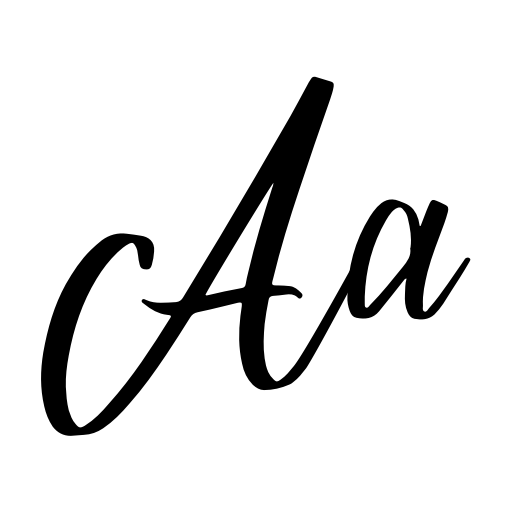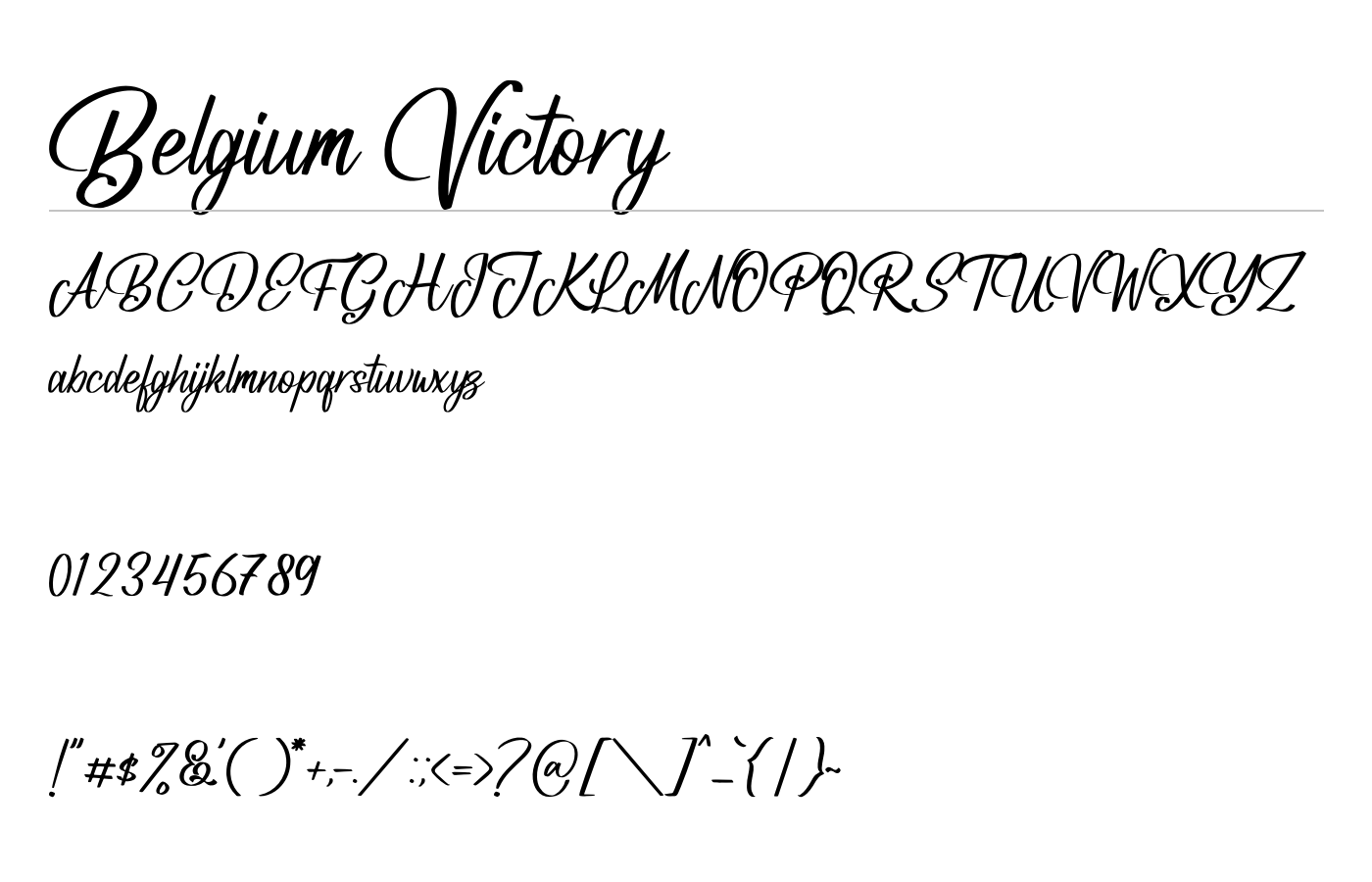
Belgium Victory is an elegant script font that features flowing, connected letterforms with a graceful and refined appearance. Its moderate contrast and smooth, calligraphic strokes give it a sophisticated yet approachable personality, making it ideal for wedding invitations, branding, and stylish headlines where a touch of class and warmth is desired. The font’s delicate curves and clear legibility also make it well suited for decorative and formal design projects.
Belgium Victory Font
About Belgium Victory Font